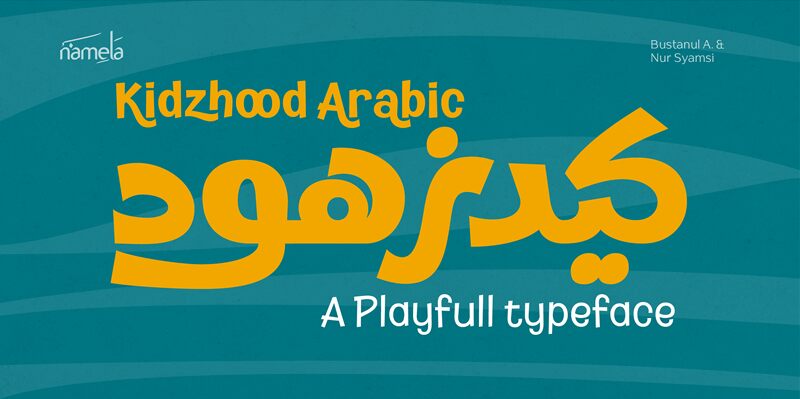
Kidzhood Arabic DEMO Light
Kidzhood Arabic Light font by Namela Type is a cartoon display font designed with modern, youthful, and approachable features. The styling combines geometric influences and casual elements for a unique result that connects impressively with readers. Youth-oriented projects especially benefit from the writing but minimal tweaking makes it possible to also use the characters in various modern applications.
A free font download allows experimenting in kid-based design, book covers, movie titles or movie posters. Kids’ videos environments and websites would look sharp with this informal lettering on board too! Geometrically inclined headings or short messages gain from them as well.